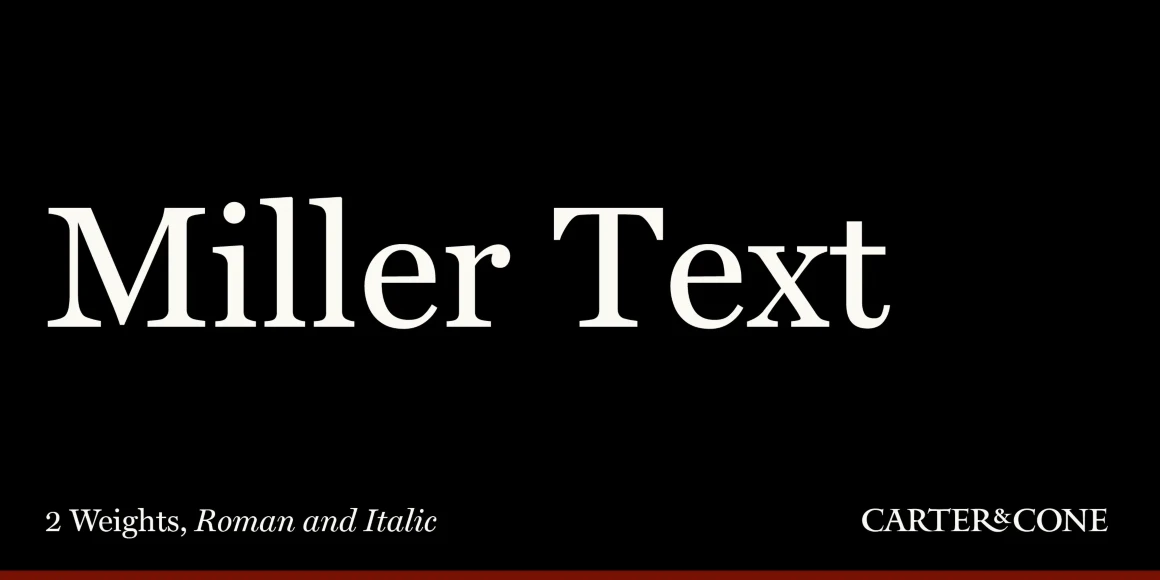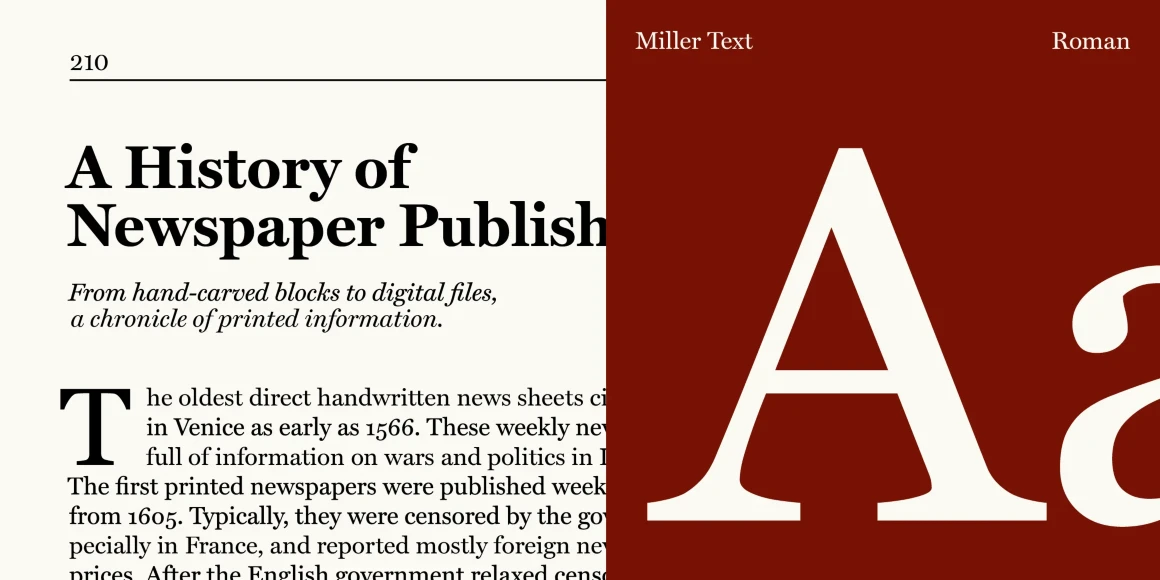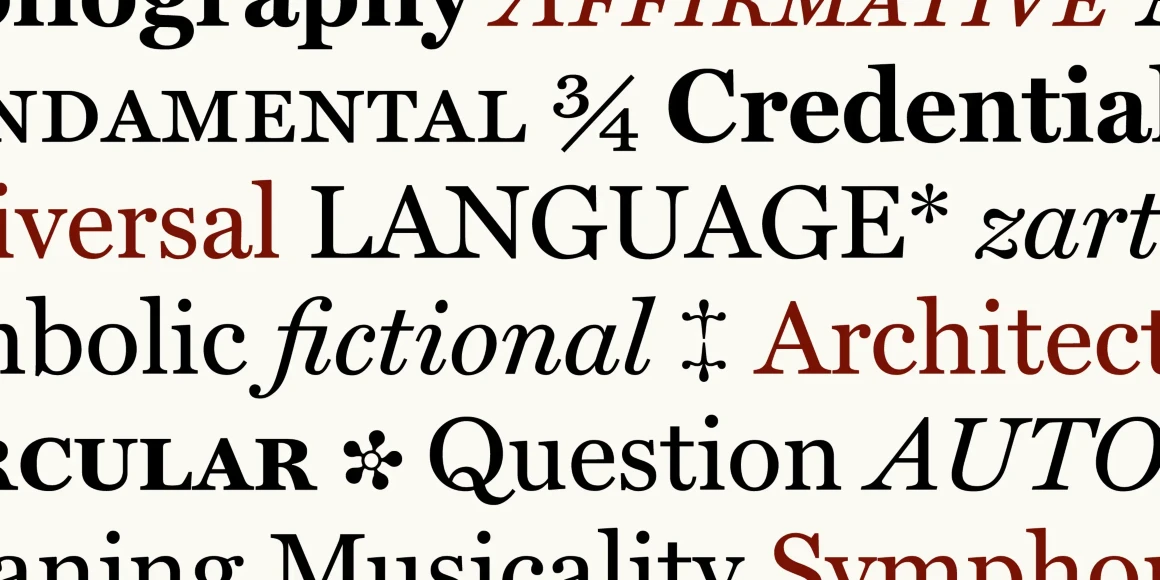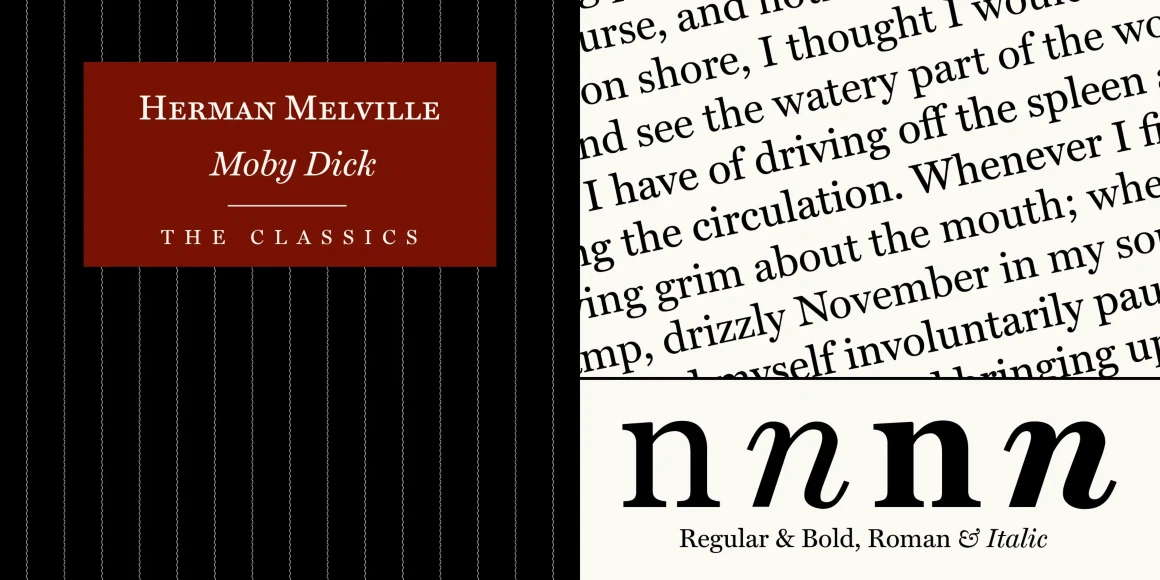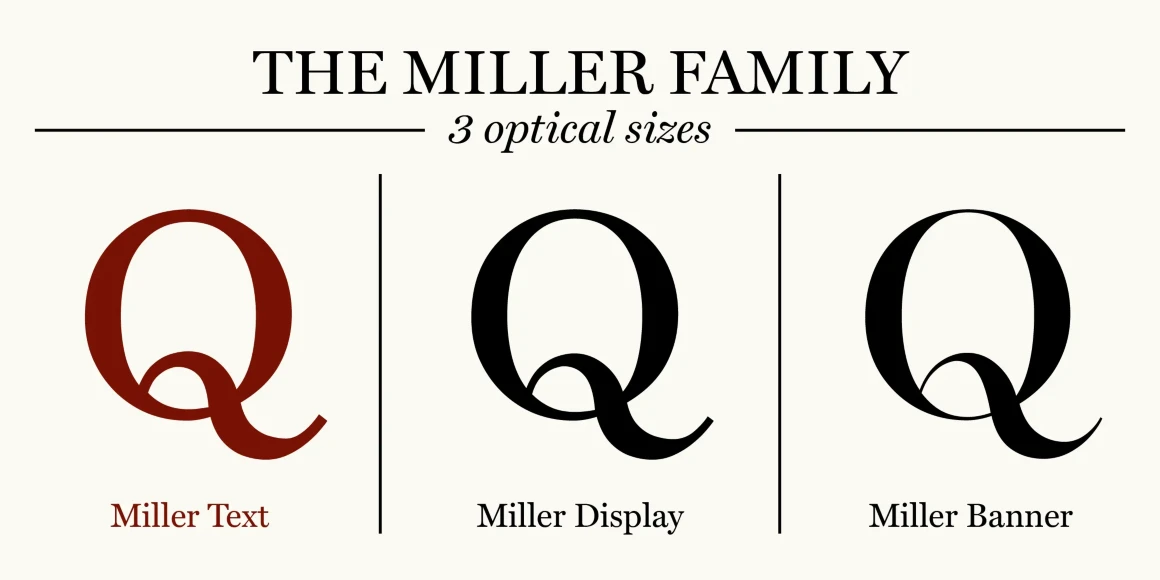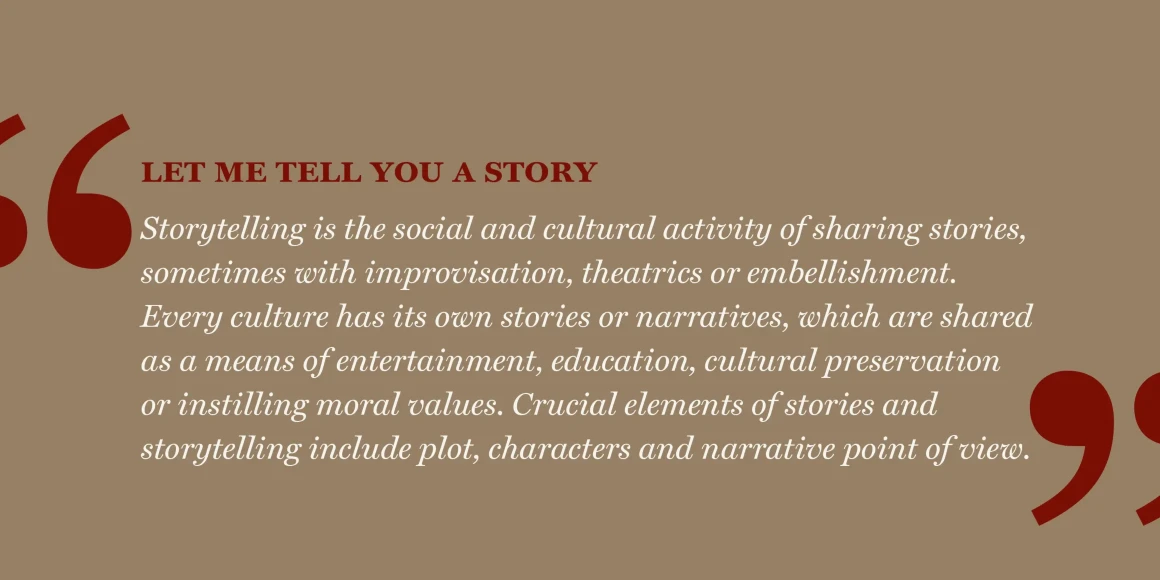
Miller Text
From Carter & Cone
Miller Text, designed by Matthew Carter, epitomizes a reliable and attractive text font. Its utility and grace are apparent onscreen or in an off-the-rack fashion magazine. The Miller family of typefaces is a reinvigoration of the 19th-century Scotch Roman. This series was a team effort, with Richard Lipton, Jill Pichotta, Tobias Frere-Jones, and Cyrus Highsmith contributing at different stages. Carter & Cone’s Miller Text is available in Roman, Semi Bold, and Bold with companion Italics.
Designed by Matthew Carter, Richard Lipton, Jill Pichotta, Tobias Frere-Jones & Cyrus Highsmith